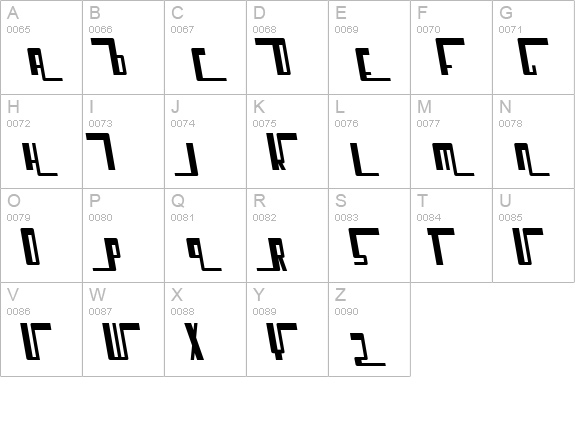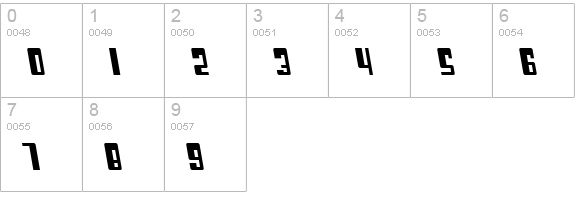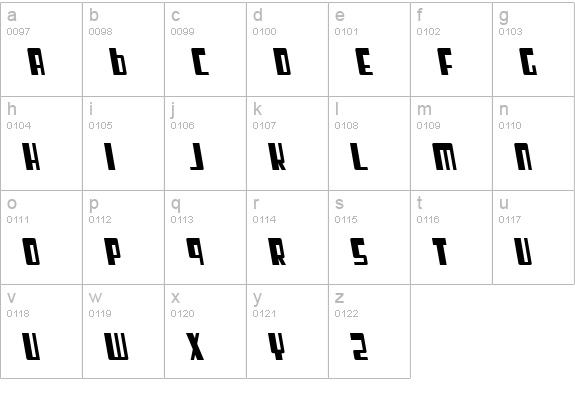
SF Cosmic Age Oblique Font Details
SF Cosmic Age Oblique is a distinctive, italic variant in the SF typeface family \xE2\x80\x94 well suited to design and typography projects.
Introducing SF Cosmic Age Oblique, a mesmerizing font that will transport your designs into the future. With its sleek and futuristic design, this font is perfect for adding a touch of otherworldly charm to any project. SF Cosmic Age Oblique is not just any ordinary font - it is a powerful tool that will take your creative endeavors to new heights. Its unique oblique style adds a sense of dynamism and energy, making it ideal for projects that require a modern and cutting-edge look. But what sets SF Cosmic Age Oblique apart is that it is not only visually striking, but also freely available to download at FontsMarket.com. Yes, you read that right - this incredible font can be yours at absolutely no cost. Whether you're a professional designer or a hobbyist, this is an opportunity you don't want to miss. With SF Cosmic Age Oblique, the possibilities are endless. From eye-catching logos to captivating headlines, this font will make your designs stand out from the crowd. Its versatility makes it suitable for a wide range of applications, including advertising, branding, posters, and more. The attention to detail in SF Cosmic Age Oblique is truly awe-inspiring. Each letter is meticulously crafted to ensure seamless legibility, even at smaller sizes. This font is designed to make a statement, without sacrificing readability. So why wait? Download SF Cosmic Age Oblique today and unleash your creativity like never before. Whether you're designing for print or digital platforms, this font will elevate your projects to new dimensions. And the best part? It's free! Visit FontsMarket.com to get your hands on this incredible font and take your designs to the next level.